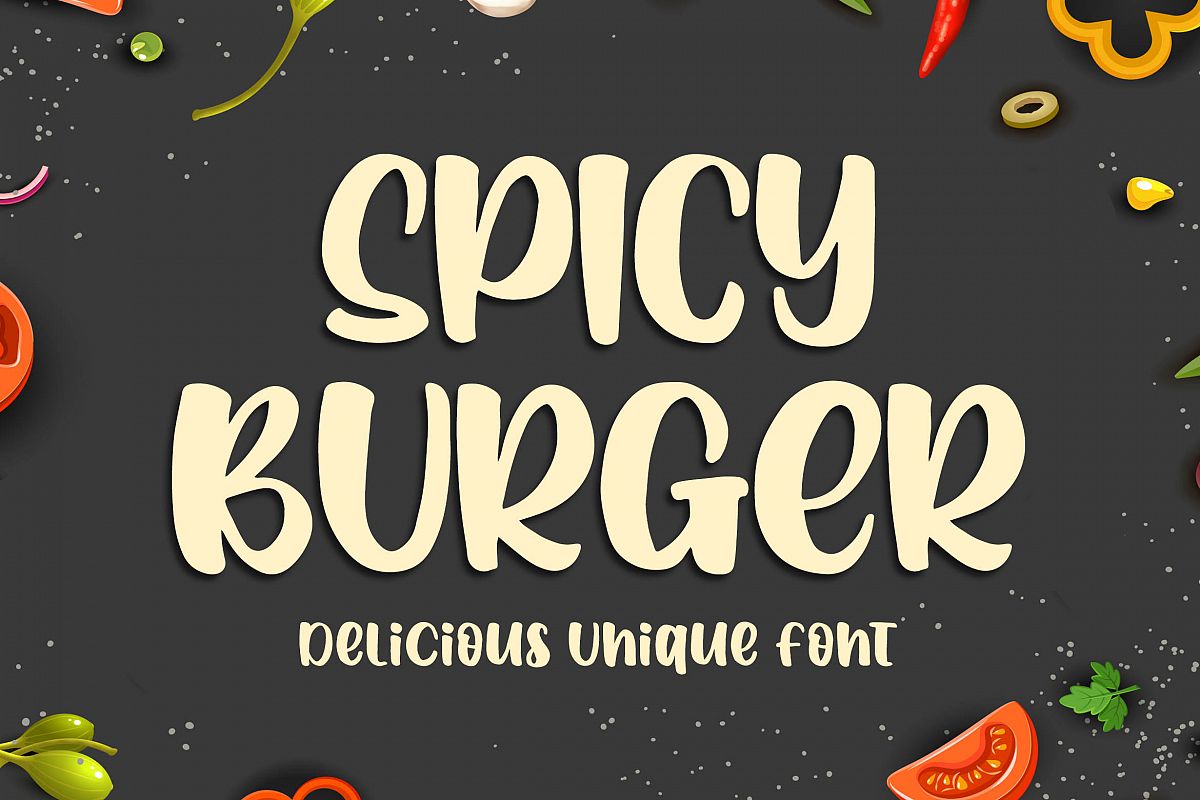
Spicy Burger - Delicious Unique Font
Introducing of our new product the name is Spicy Burger Delicious Unique Font. Spicy Burger inspired by Bouncy calligraphy this font is a fun theme very good for kids, comic, food logo, food menu, wedding invitation, logotype and etc
MULTILINGUAL ACCENT :
ØÆøæ¢ÐŒœÁĂÂÀÄĄÅÃǼĆČÇĈĊĎÉĔĚÊËĖÈĘĞĜĢĠĤÍĬÎÏİÌĮĨĴĶĹĽĻĿŃŇŅÑÓŎÔÖÒŐǾÕŔŘŖŚŠŞŜȘŤŢÚŬÛÜÙŰŲŮŨẂŴẄẀÝŶŸỲŹŽŻáăâäàąåãǽćčçĉċďéĕěêëėèęğĝģġĥíîïìįĩĵķĺľļŀńʼnňņñóŏôöòőǿõŕřŗśšşŝșťţŭûüűùųůũẃŵẅẁýŷÿỳźžż